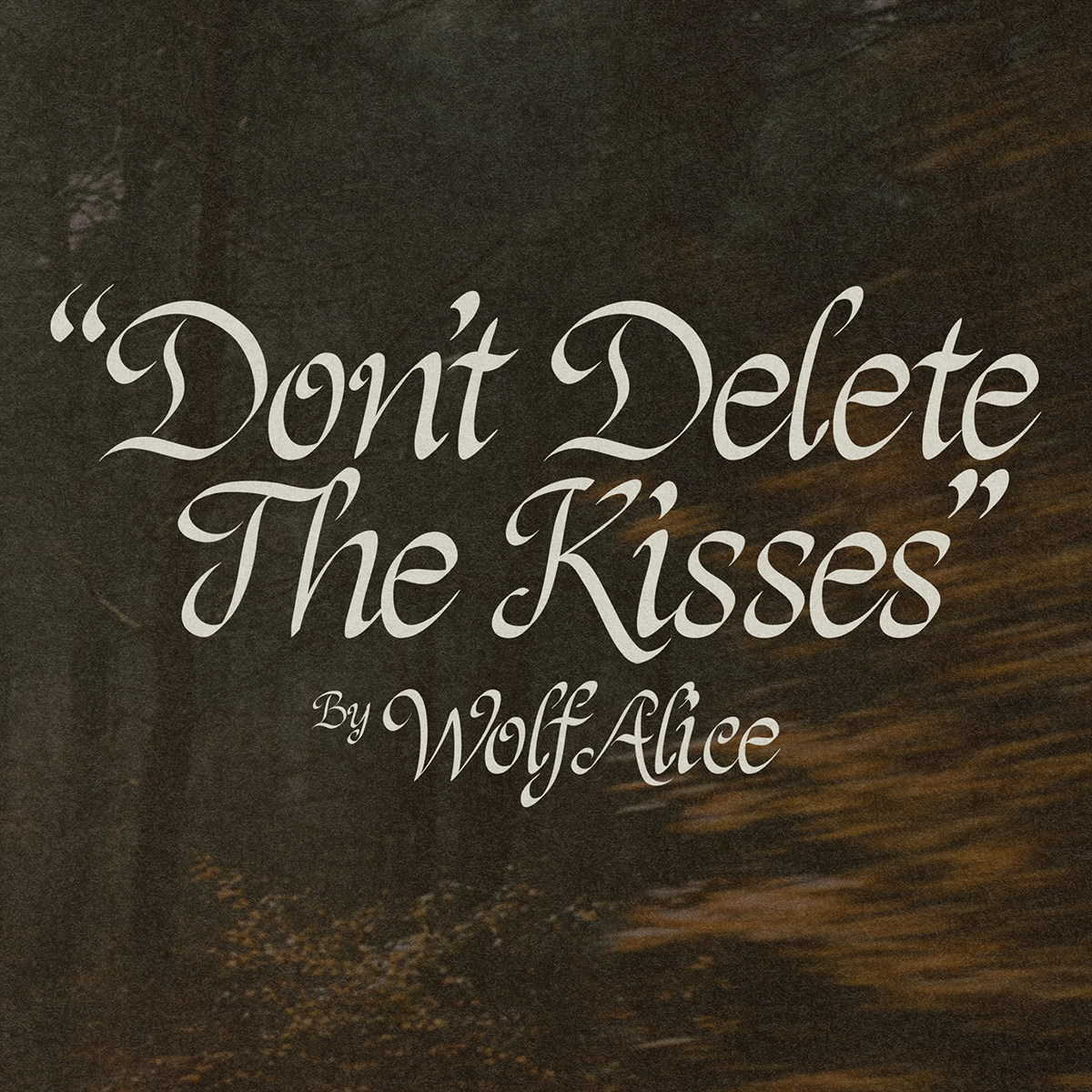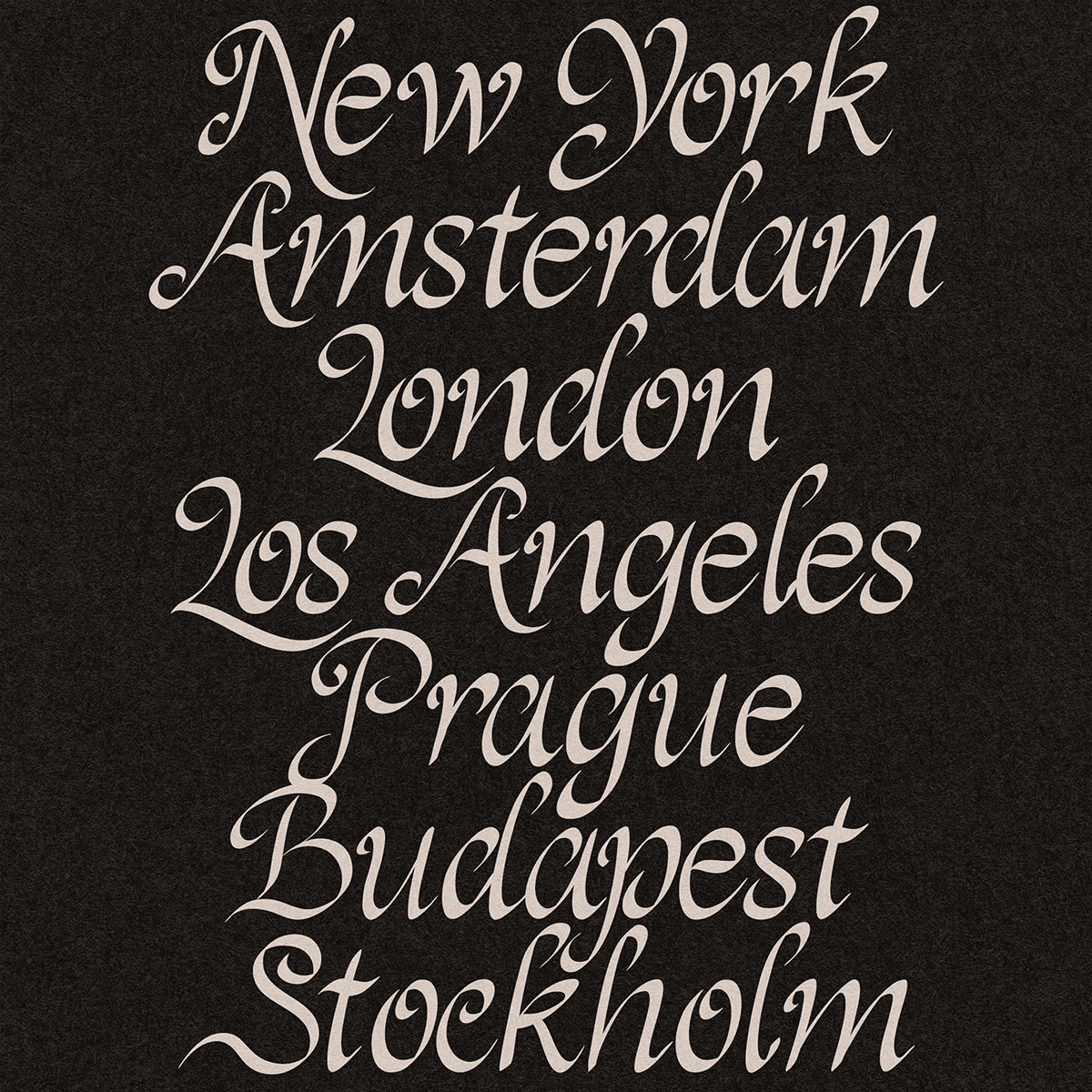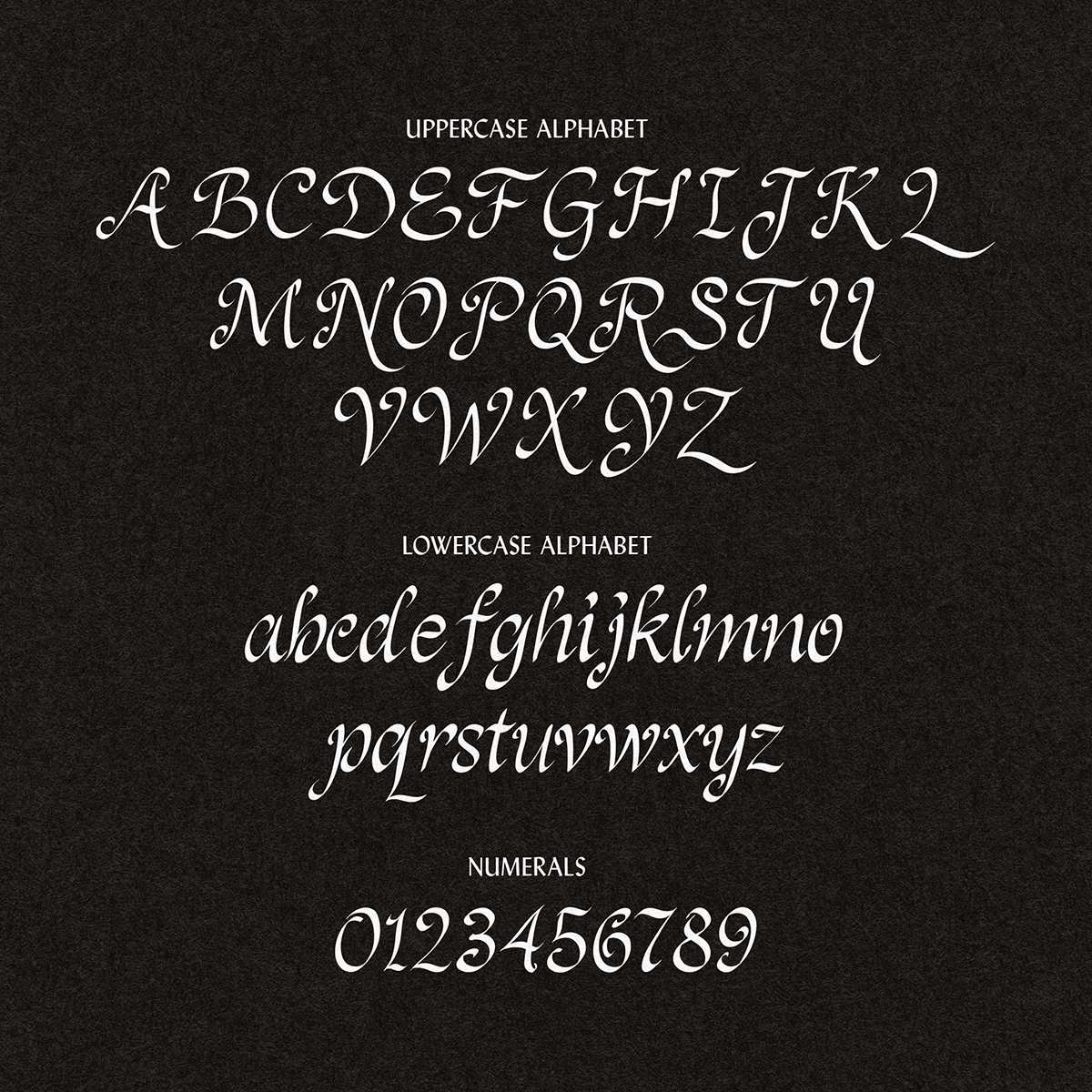
Epitaph Script is my Blackletter inspired script font! A versatile display script with an elegant but intense vibe that can be used seamlessly in a bunch of different design applications! Perfect for Logos, merchandise, headers, typographic designs and much more.
Full Uppercase & Lowercase Alphabet
Numbers and essential symbols